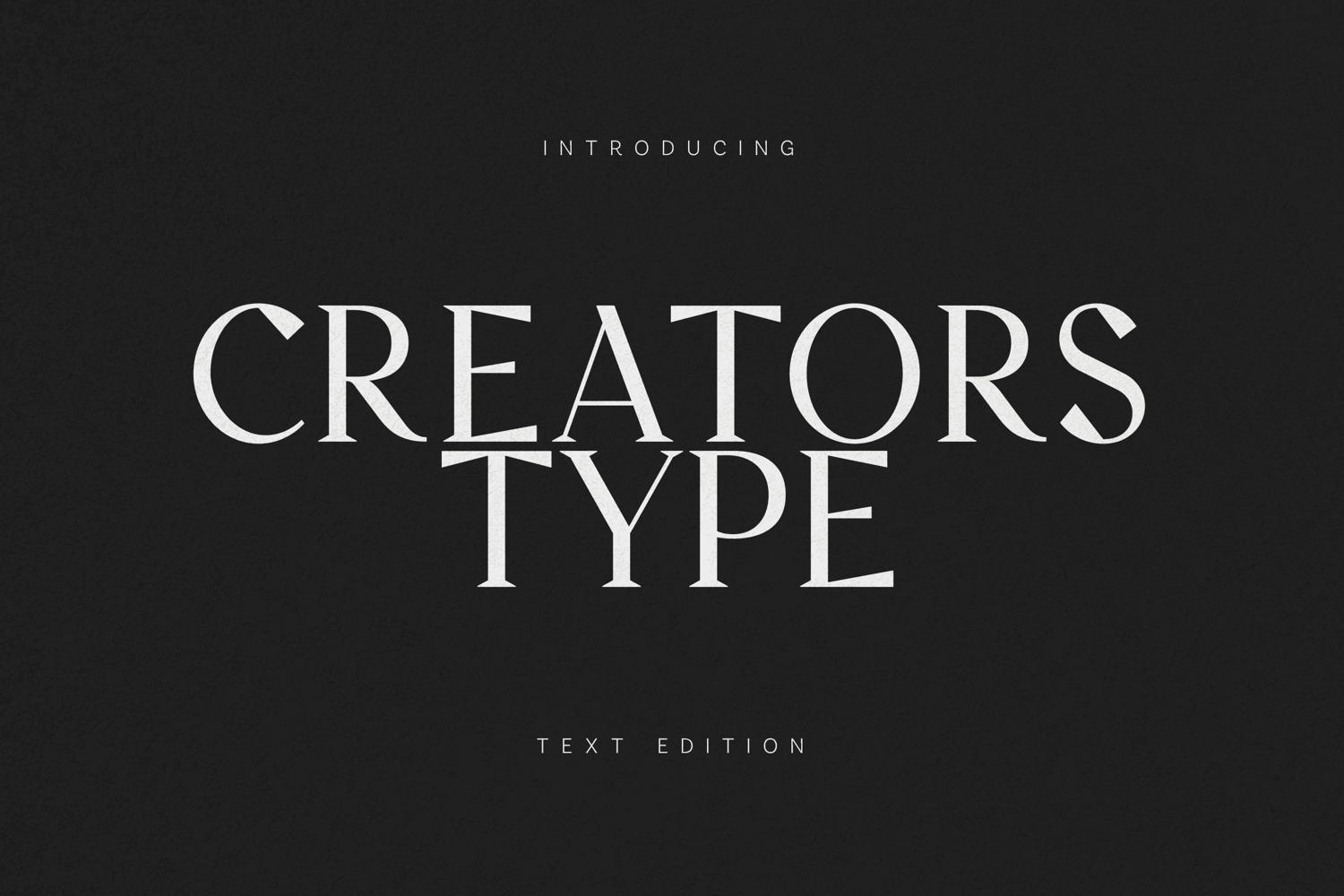
Creators Type Elegant Modern Serif Font
Creators Type – Text Edition is a refined modern serif typeface designed for elegant editorial typography, luxury branding, and sophisticated design work.
The font features balanced proportions, graceful serifs, and carefully crafted contrast that gives it a timeless yet contemporary personality. Its clean structure and elegant rhythm make it perfect for long-form text, editorial layouts, and high-end visual identities.
Creators Type performs beautifully in magazines, branding projects, packaging, and digital typography where readability and style must work together.
The typeface includes uppercase and lowercase characters, numerals, punctuation, and extended multilingual support, making it suitable for global design projects.
Perfect for• Editorial design
• Branding
• Magazine typography
• Logos
• Luxury packaging
• Websites
• Posters
• Social media graphics